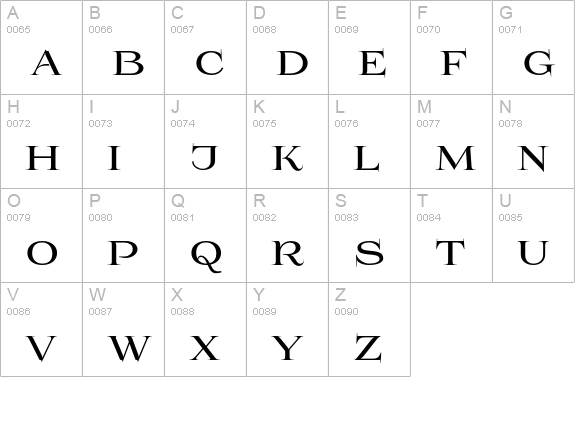
Prida01Bold Font Details
Introducing Prida01Bold, a stunning and versatile typeface that will elevate your design projects to new heights. With its bold and confident letterforms, this font exudes a sense of strength and sophistication, making it perfect for headlines, logos, and branding materials. Prida01Bold is characterized by its clean lines and smooth curves, creating a visually pleasing aesthetic that is both modern and timeless. Its generous letter spacing ensures excellent readability, even at smaller sizes, making it suitable for both print and digital applications. One of the most remarkable aspects of Prida01Bold is that it is freely available to download at FontsMarket.com. This means that you can easily access and utilize this remarkable font without any financial constraints. Whether you are a professional designer or a casual enthusiast, the accessibility of Prida01Bold allows you to unleash your creativity without limitations. The versatility of Prida01Bold extends beyond its aesthetic appeal. This font seamlessly adapts to various design styles and themes, making it a reliable choice for a wide range of projects. From elegant invitations to eye-catching posters, Prida01Bold effortlessly adds a touch of sophistication and charm. With Prida01Bold, you have the power to create impactful designs that captivate and inspire. So why wait? Download Prida01Bold today from FontsMarket.com and embark on a design journey that is both liberating and visually stunning. Unleash your creativity and let Prida01Bold be your trusted companion in achieving design excellence.